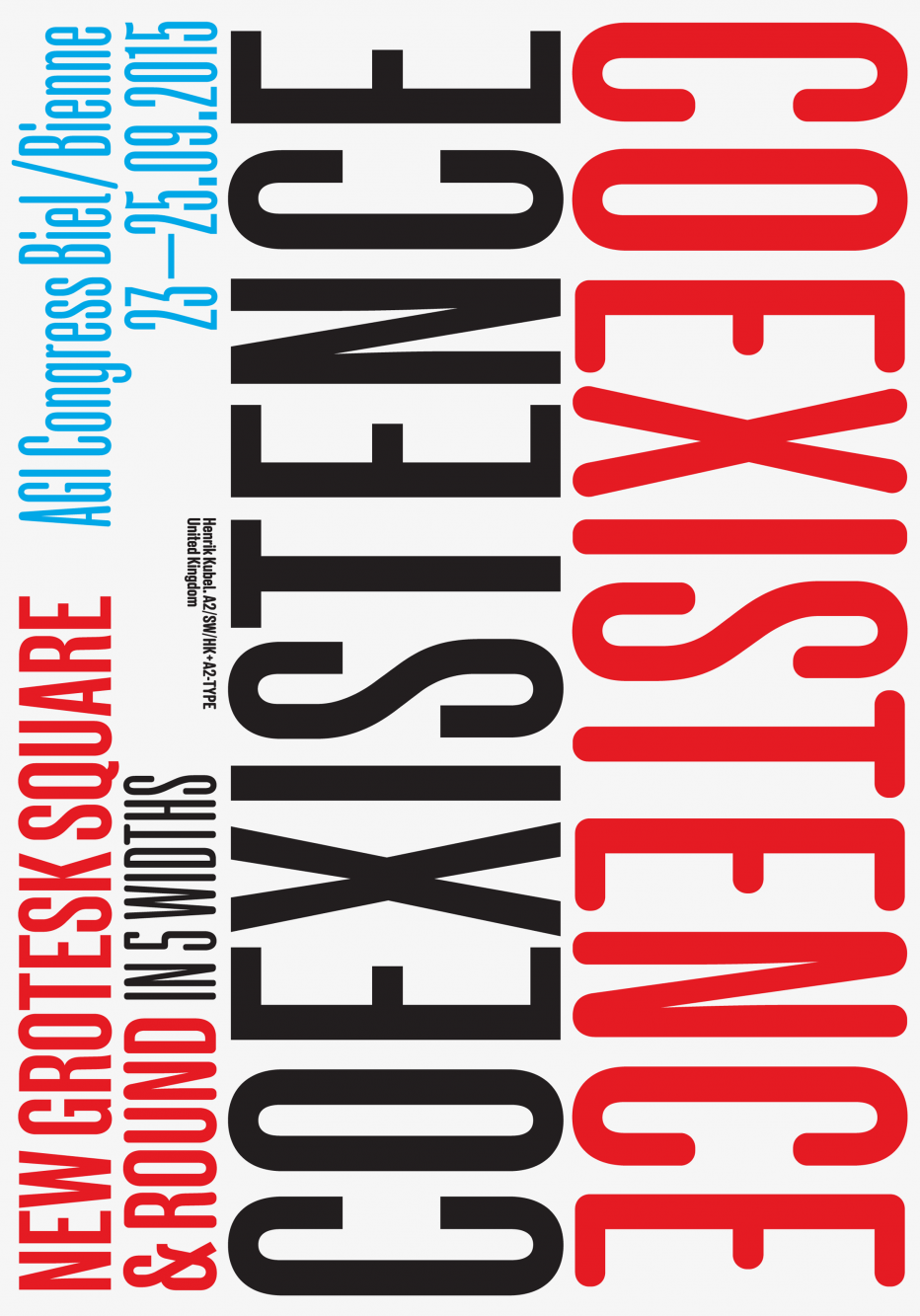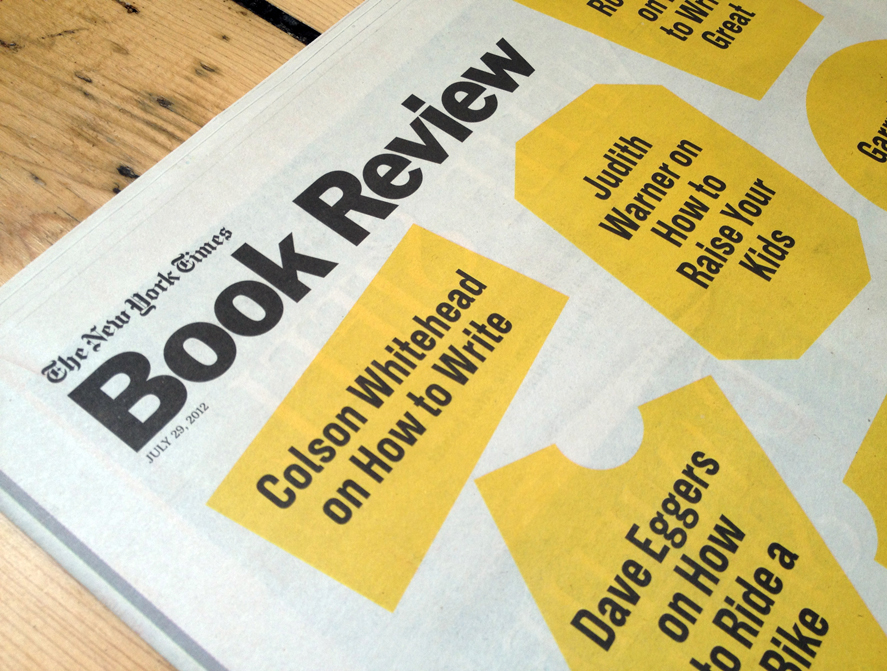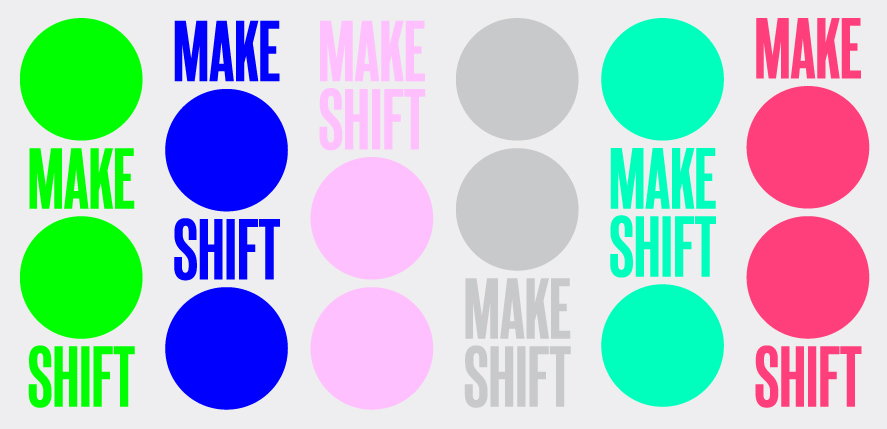
New Grotesk Square
7 Widths. ADVANCED
A suite of 7 condensed fonts inspired by display wood type from A2-TYPE’s archive of historical specimens, printed ephemera and collection of letterpress wood type. The New Grotesk Square family comprises a series of condensed fonts designed with unified proportions across all widths; from ONE to SEVEN, to create a varied palette of fonts for the modern designer. A companion soft version of the typeface is also available as New Grotesk Round.
Source material / Inspiration for New Grotesk Square
Wallpaper* Handmade, 2015. Wine labels featuring New Grotesk Square + Round for Milan Furniture Fair exhibition. Design by A2/SW/HK
Poster for Paul Shaw’s lecture at Royal College of Art, London, 2014. Design by A2/SW/HK
The New York Times Newspaper, 2012. Book Review, front page illustration by A2/SW/HK